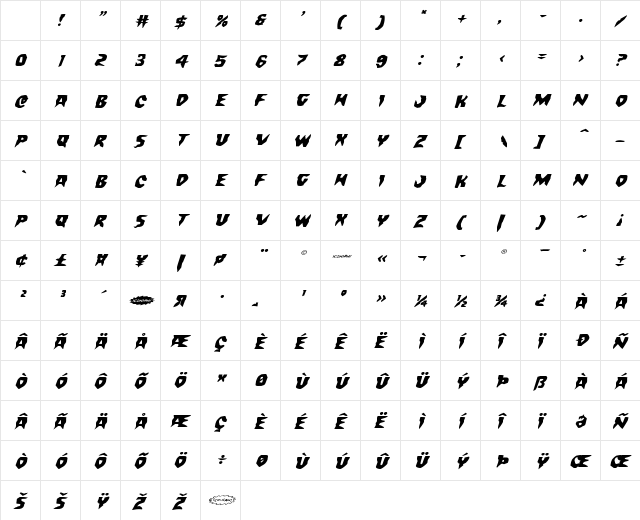
Count Suckula Expanded Italic is a composed and adaptable typeface that performs quietly and consistently across a wide range of design contexts. The slanted form adds forward momentum and visual energy.
Pro Tip: Use Count Suckula Expanded Italic for emphasis, pull quotes, and subheadings where its slanted energy can add rhythm to the layout.